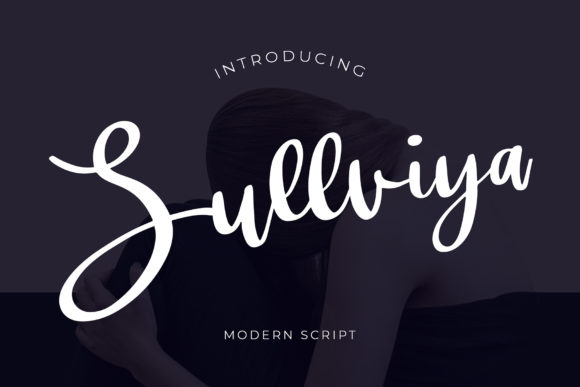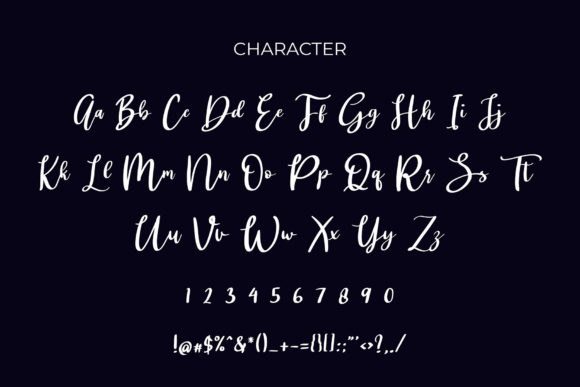
About Sullviya Font
Sullviya is a flowing handwritten font, described by an elegant touch, perfect for your favorite projects. Fall in love with its incredibly distinct and timeless style and use it to create spectacular designs!